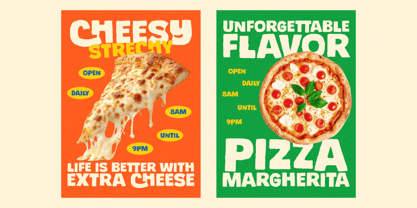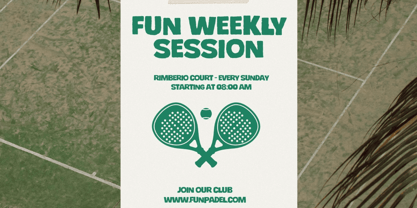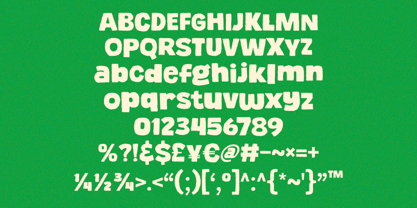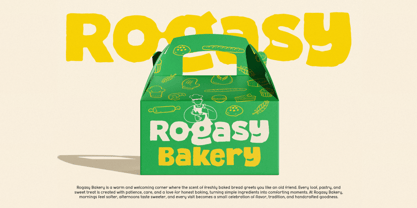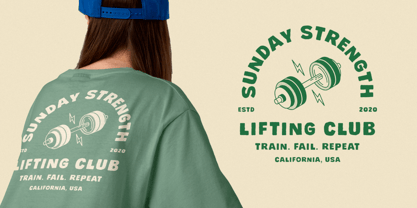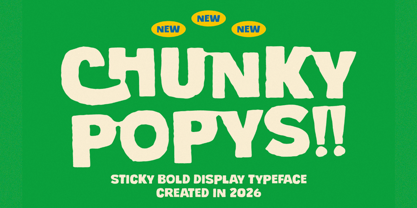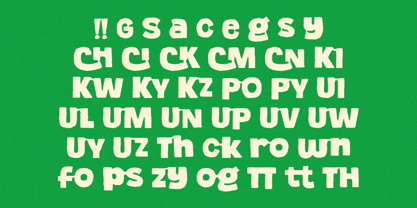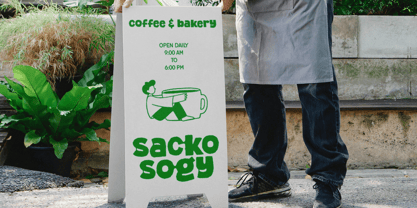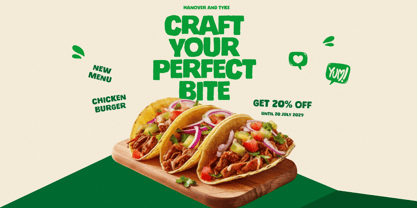
Chunky Popys
by Heinzel Std
The Chunky Popys Font Family was designed by Nofi Sofyan Hadi and published by Heinzel Std. Chunky Popys contains 1 styles.
Chunky Popys is a bold, sticky display typeface designed to make a strong visual impact. With its thick, playful letterforms and soft, organic curves, this font brings a fun and energetic personality to any design. Perfect for eye-catching headlines, posters, branding, packaging, and social media graphics, Chunky Popys stands out with its unique “melty” aesthetic that feels both retro and modern. Created in 2026, this typeface is ideal for creatives looking to add a cheerful, expressive touch to their projects while maintaining high readability at large sizes. Grab Chunky Popys today and make your designs impossible to ignore—bold, playful, and built to stand out!
Designers: Nofi Sofyan Hadi
Publisher: Heinzel Std
Foundry: Heinzel Std
Design Owner: Heinzel Std